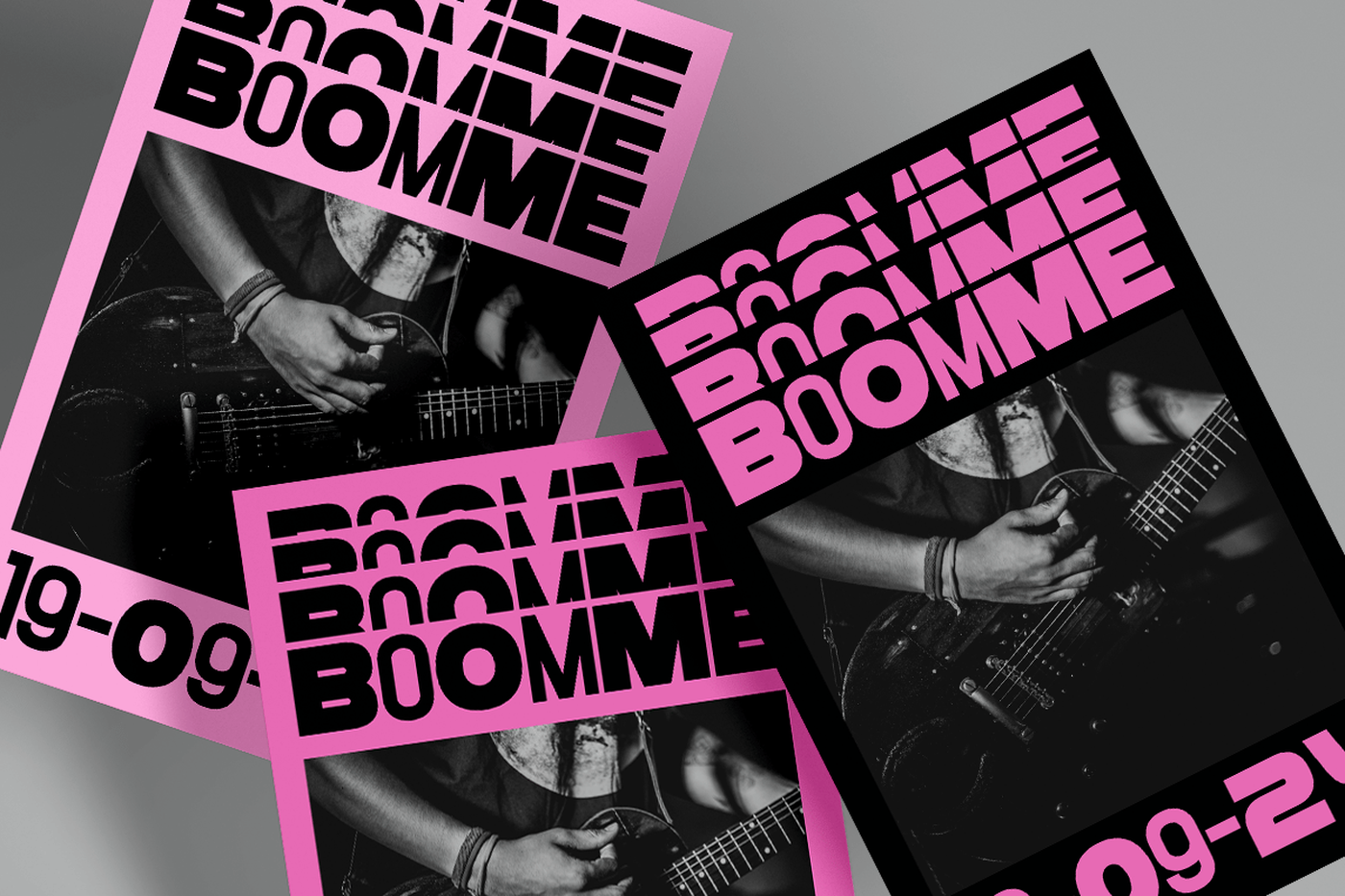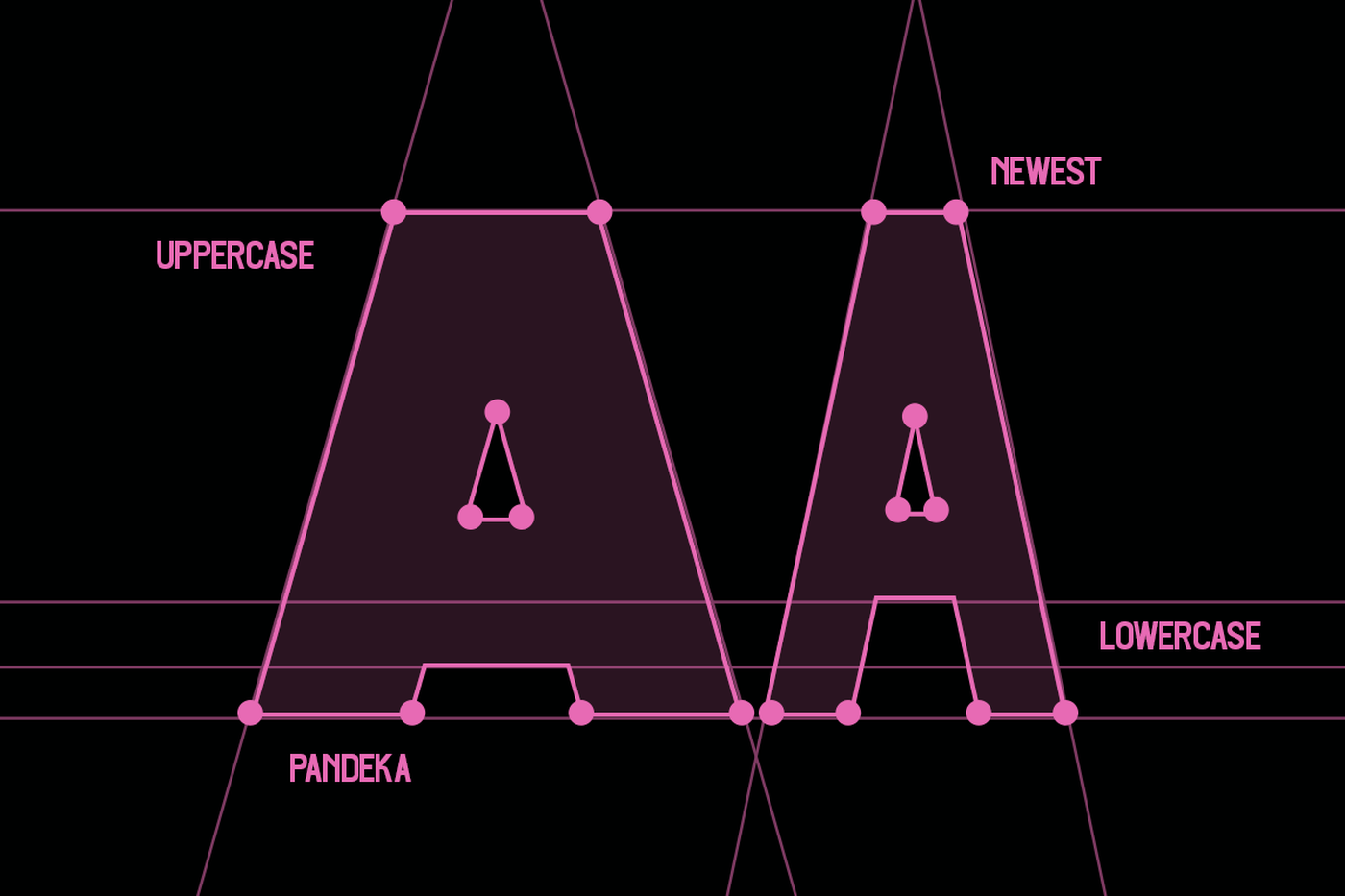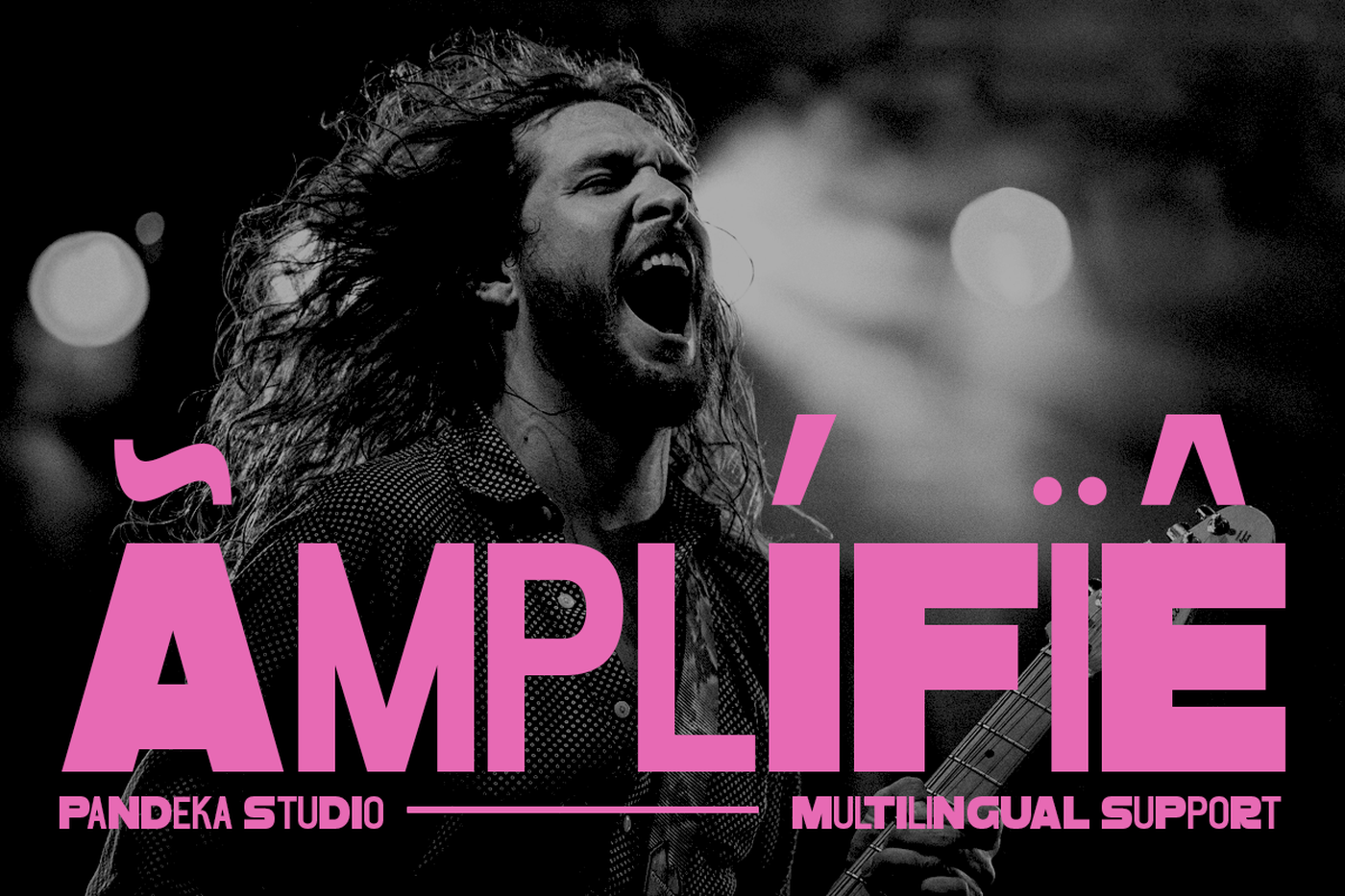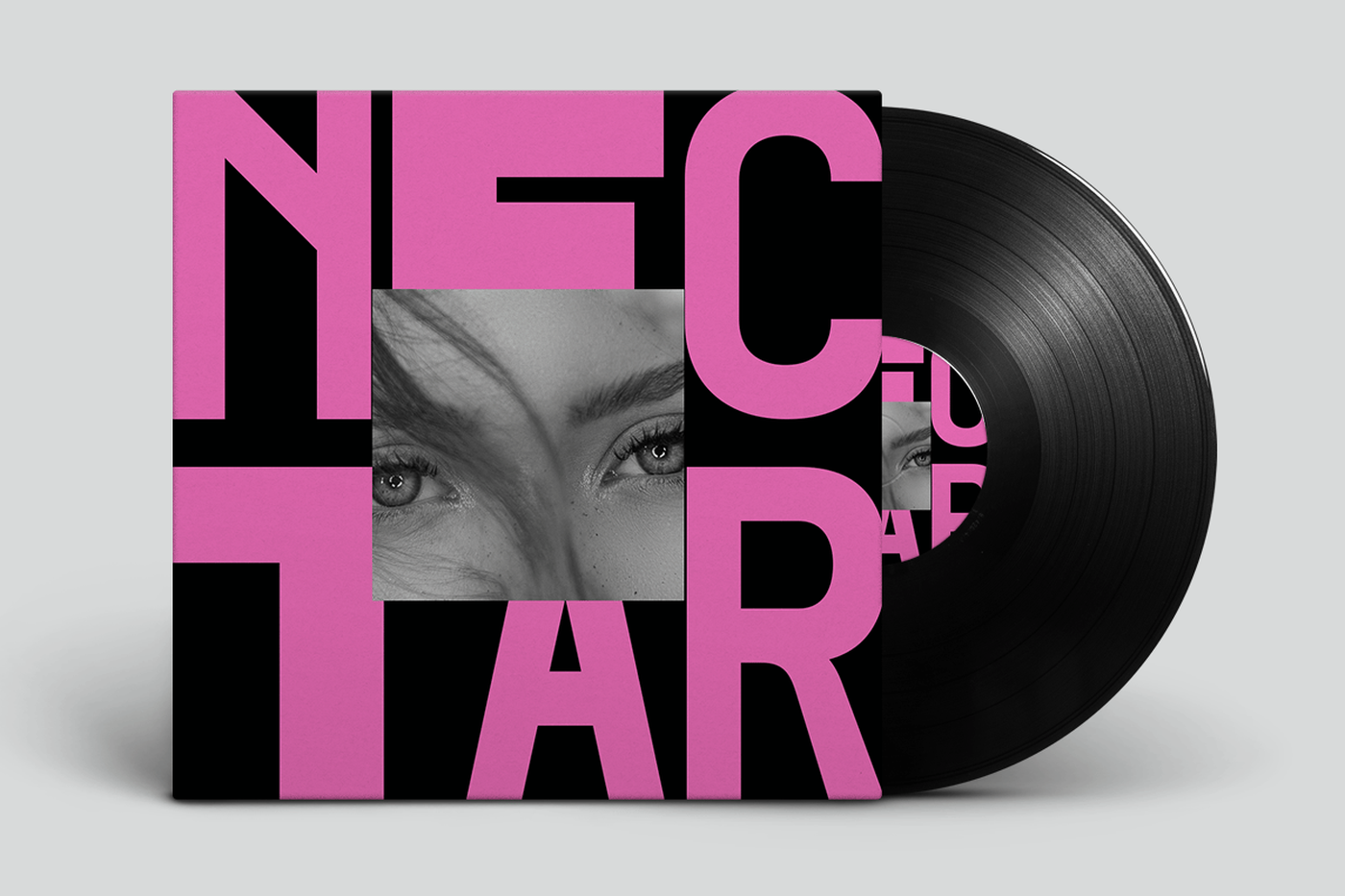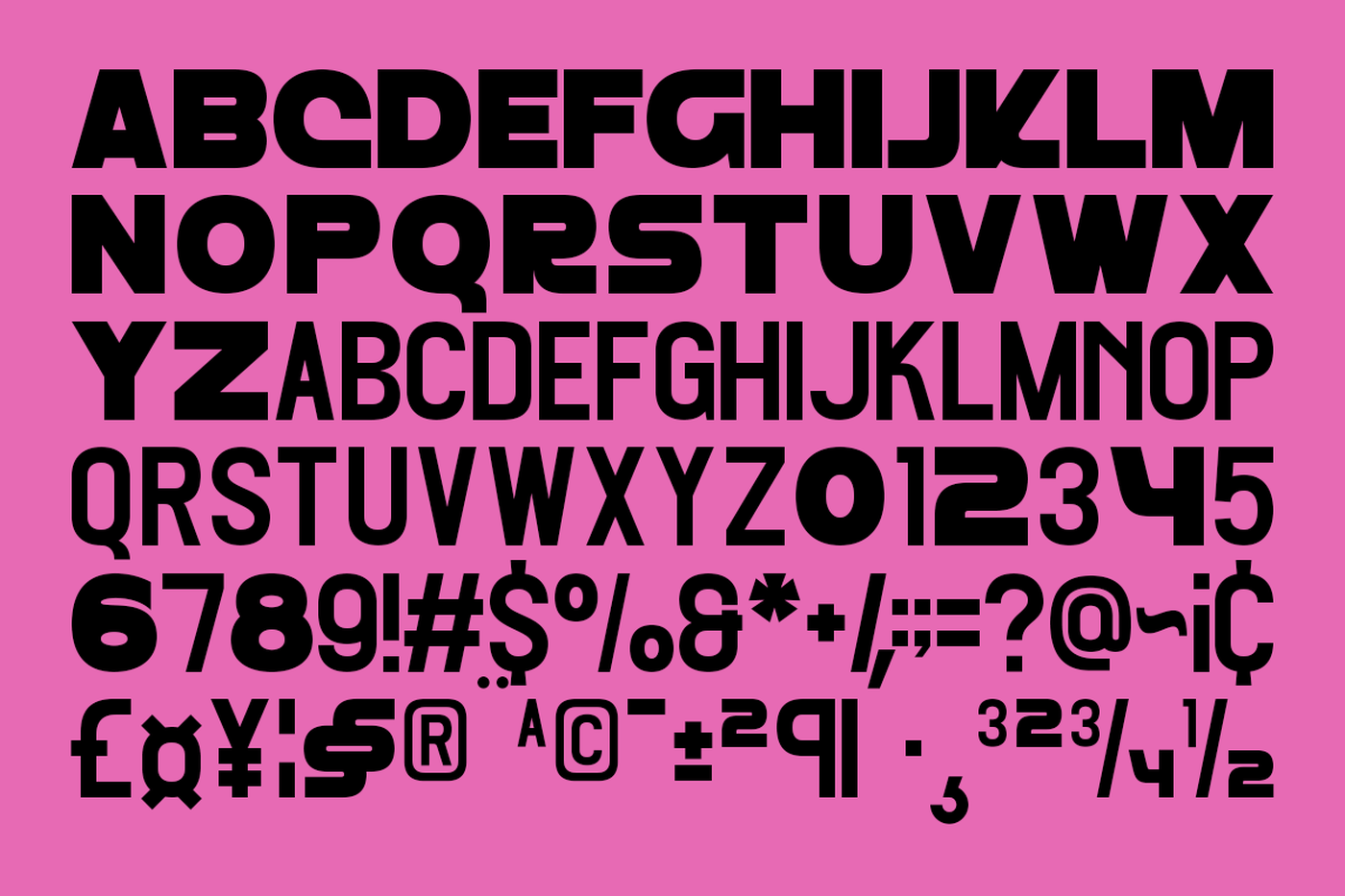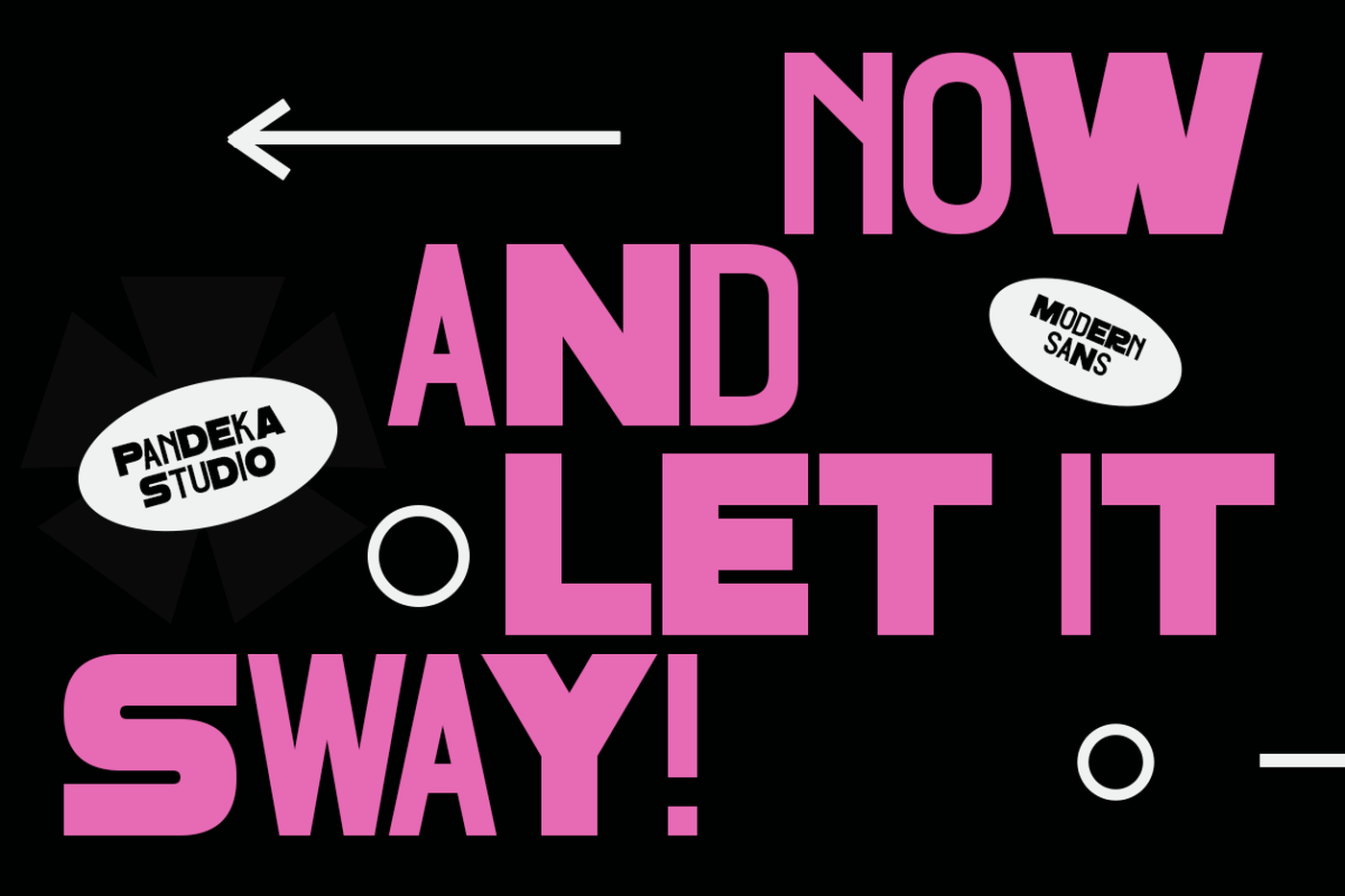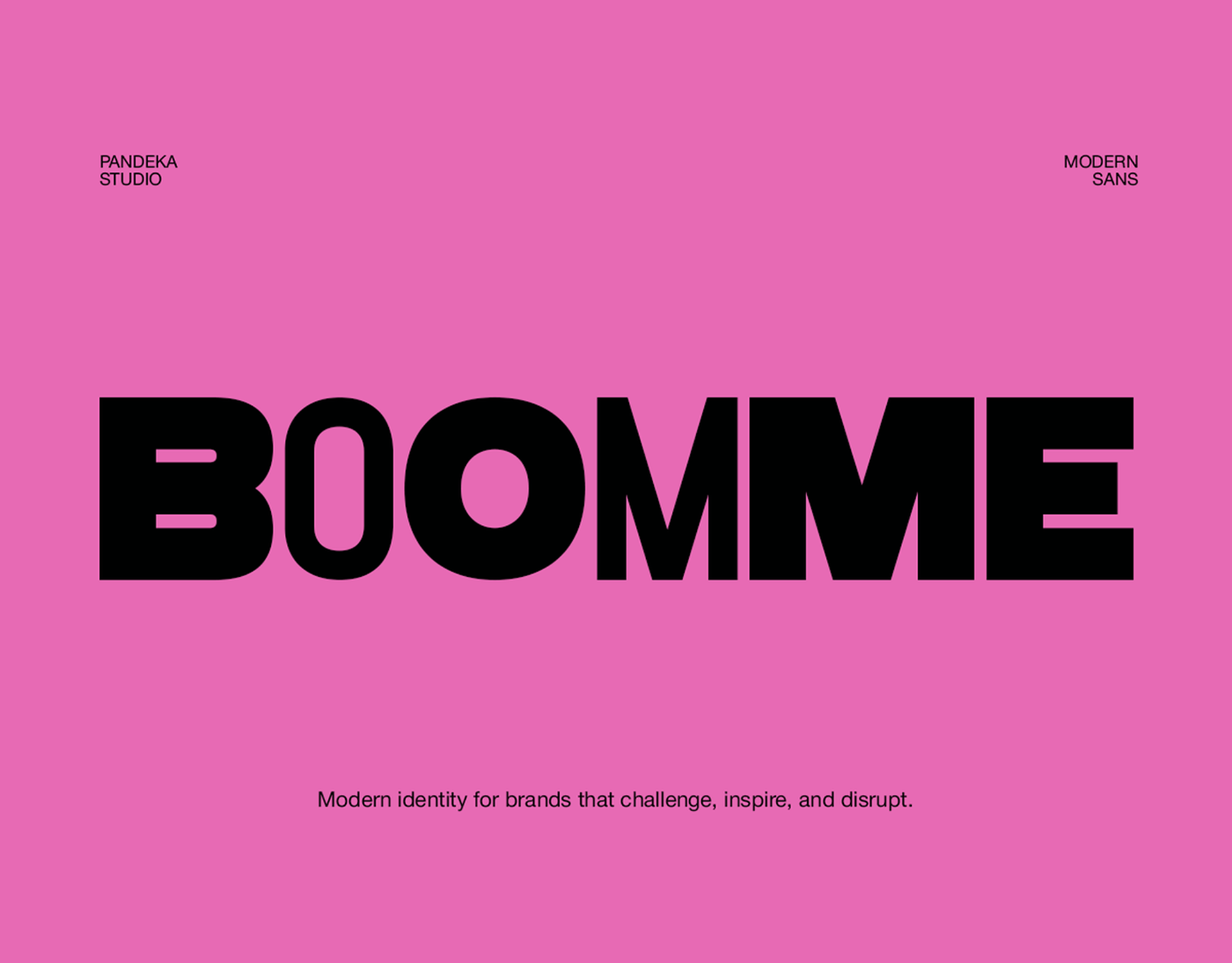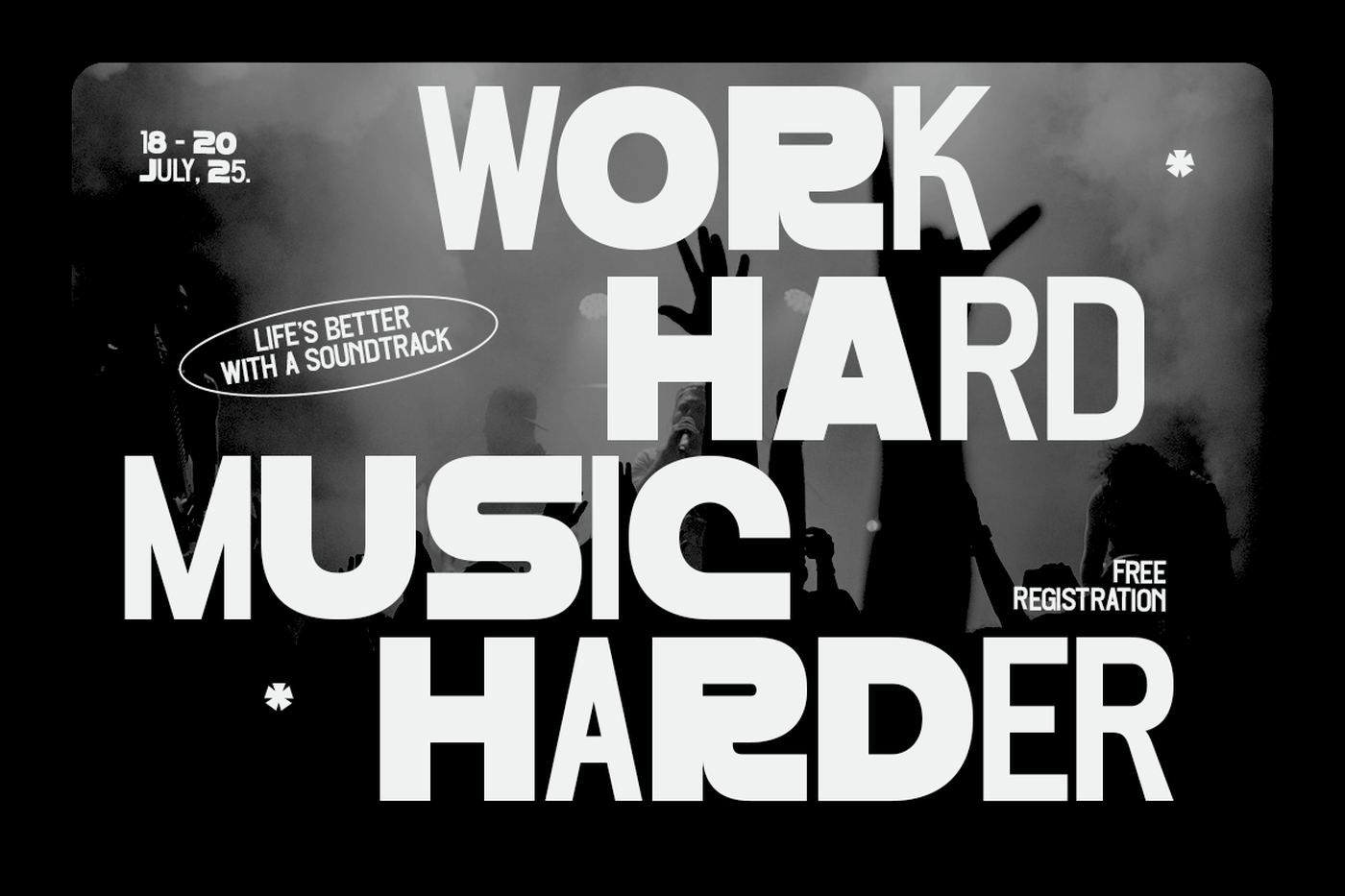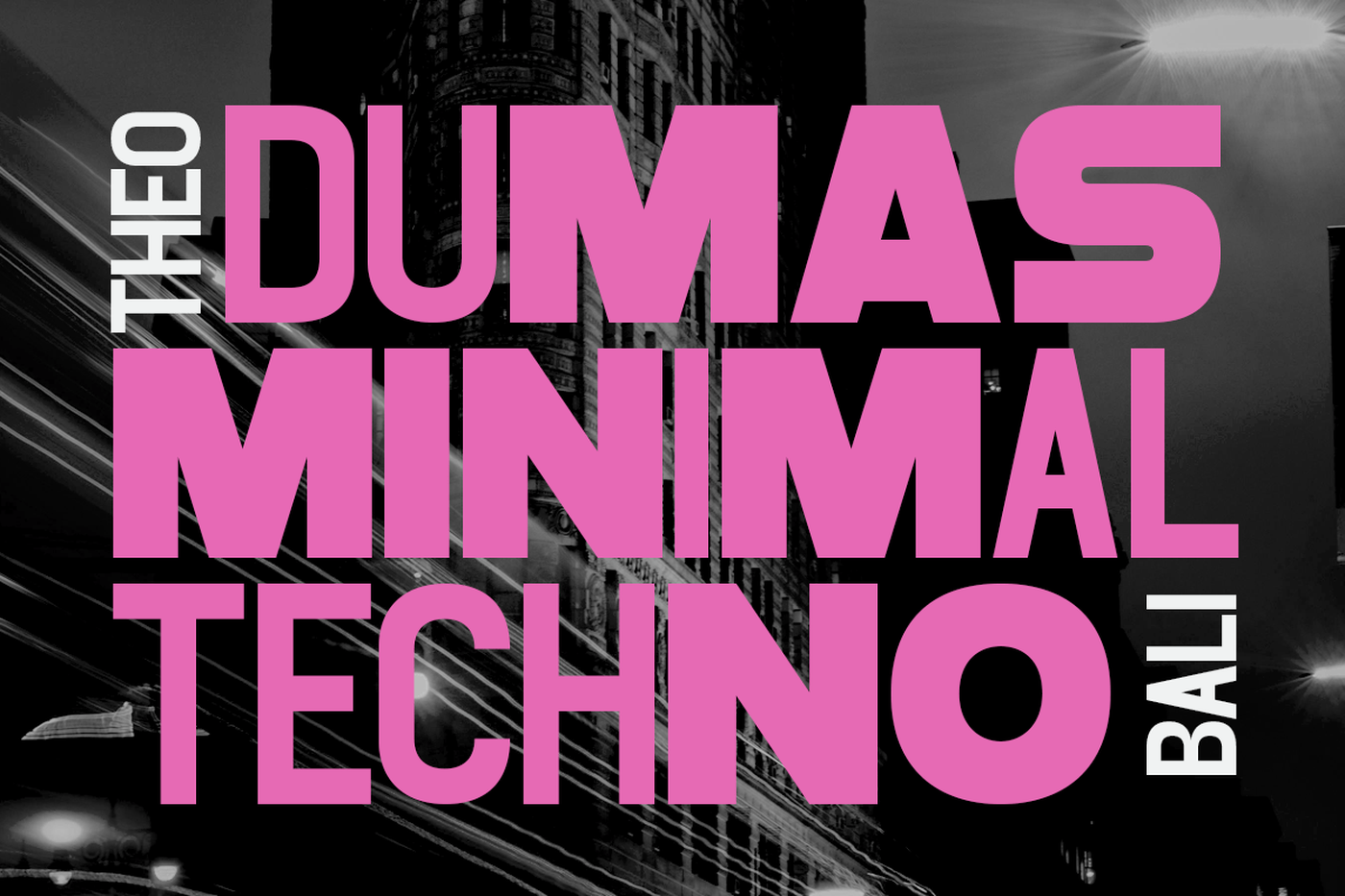
Boomme - Modern Bold Font
Boomme is a bold and modern display font that embodies the energy and rhythm of urban life. Designed with strong geometric shapes and a confident, contemporary aesthetic, Boomme brings a stylish and powerful presence to your creative projects. Perfect for music posters, streetwear branding, club flyers, urban editorials, and event promotions, this font captures the pulse of the modern city. With its clean structure and impactful character design, Boomme is ideal for brands and creatives who want to make a statement. Every letter delivers a sense of strength, confidence, and motion — perfect for modern typography that demands attention.